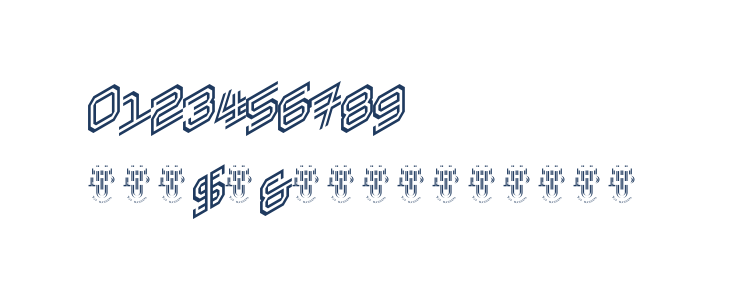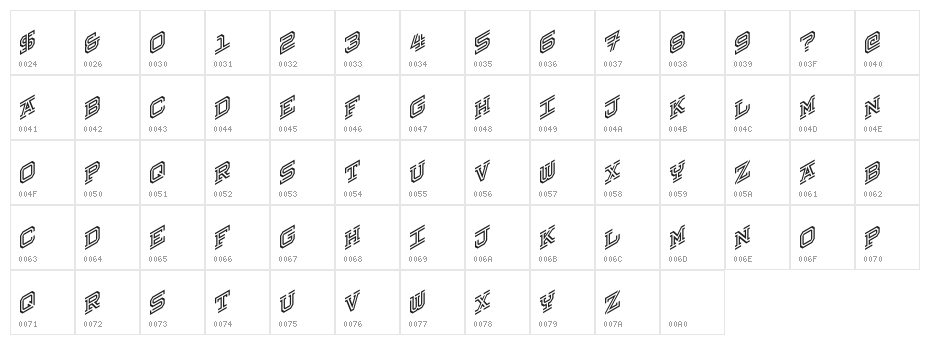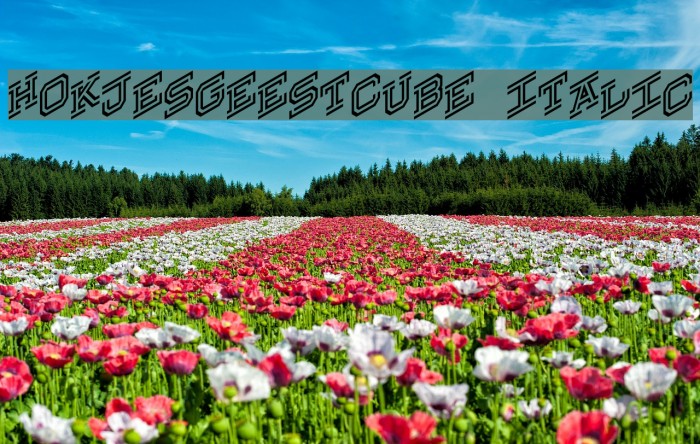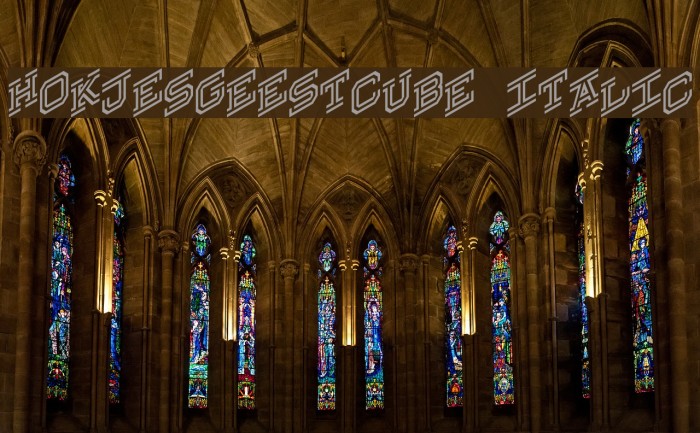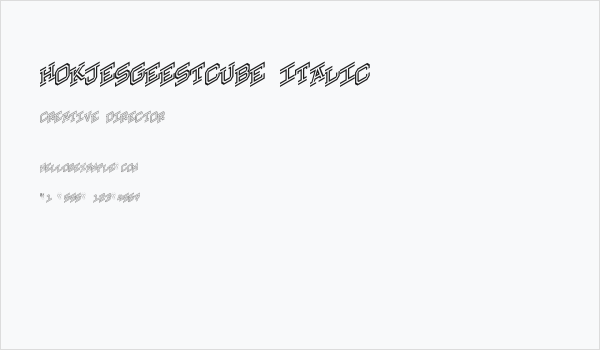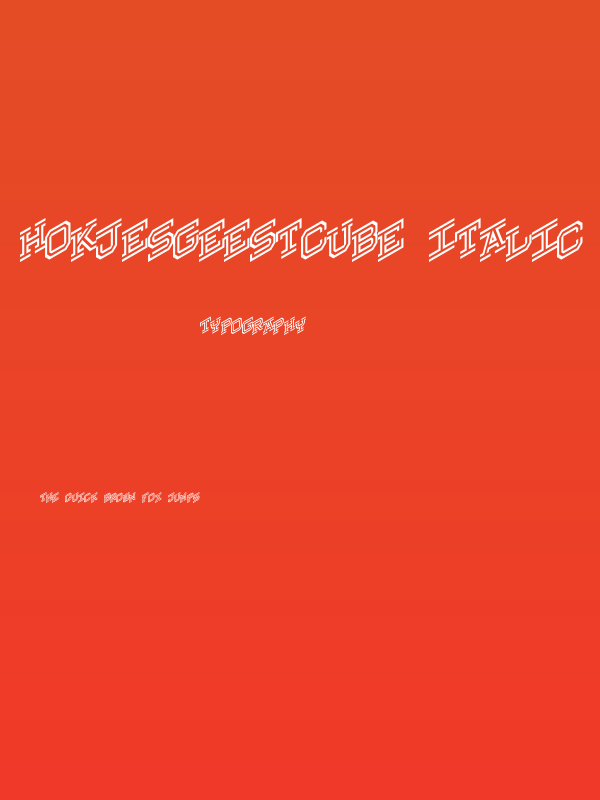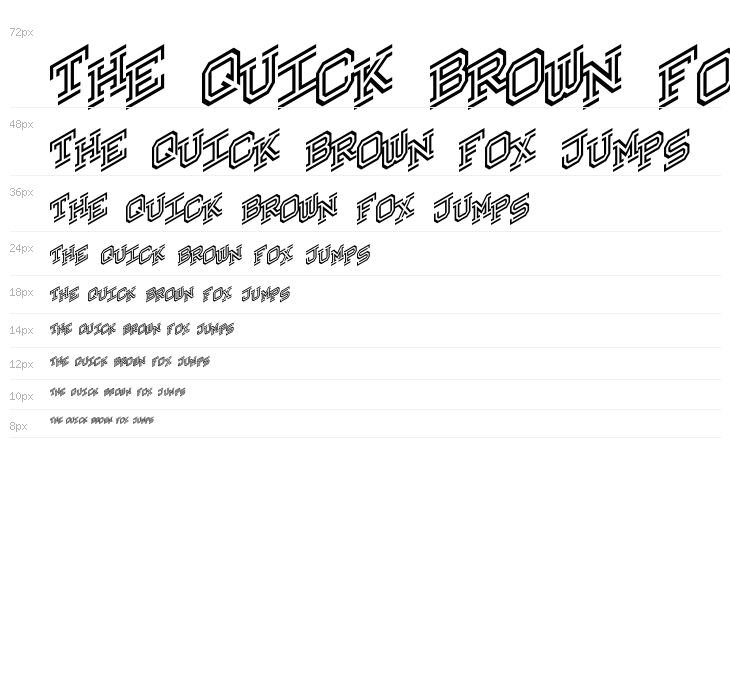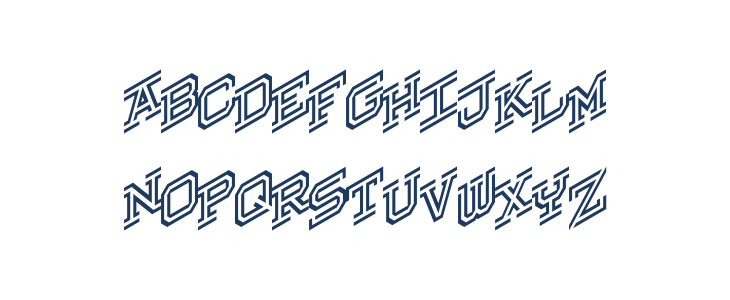
Hokjesgeestcube Italic Font
Hokjesgeestcube Italic Description
This font features a bold, geometric design with a distinct three-dimensional effect. The characters are italicized, giving them a dynamic and forward-leaning appearance. Each letter is outlined with a double line, creating a shadow effect that enhances the 3D illusion. The font combines modern aesthetics with a retro-futuristic vibe, making it stand out in any design. The uppercase and lowercase letters maintain a consistent style, while the numbers and special characters follow the same bold and angular design. This font is perfect for projects that require a strong visual impact and a sense of movement.
| Overall Style | Modern, Retro-Futuristic |
| Proposed Projects | Ideal for posters, logos, video game graphics, and futuristic-themed designs. |